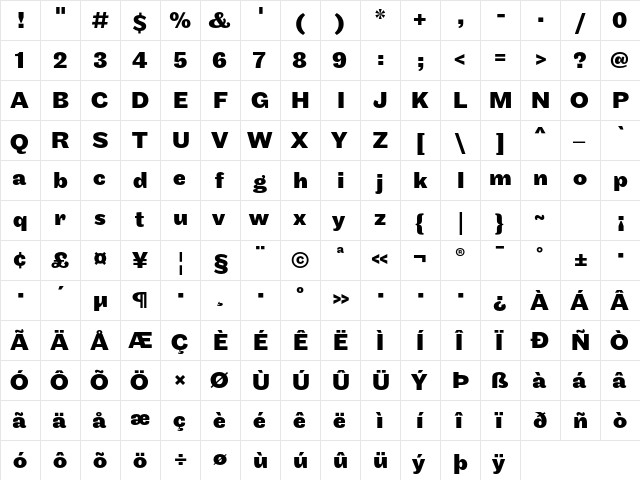
Maple Bold
| Foundry | Eric Olson |
| Designer | Eric Olson |
Design Context for Maple Typeface
Maple offers clean, dependable letterforms without strong stylistic allegiance, making it a practical choice for designers who need flexibility. The heavy weight commands attention and anchors typographic hierarchies.